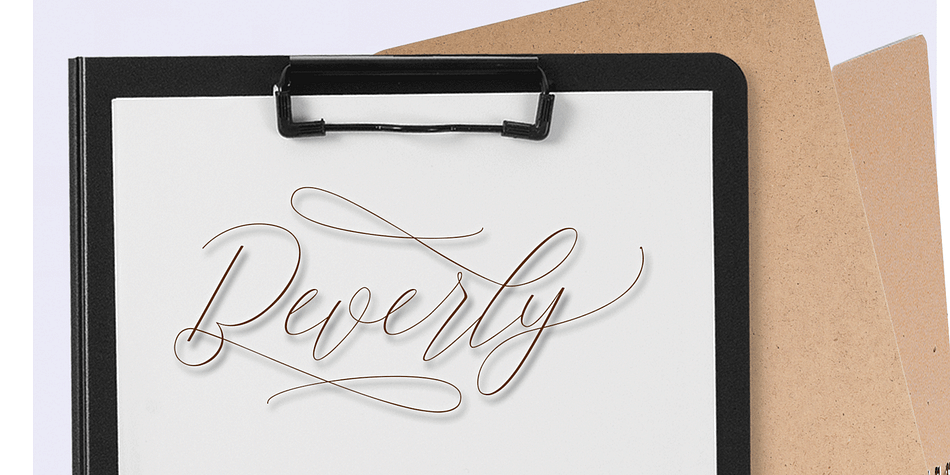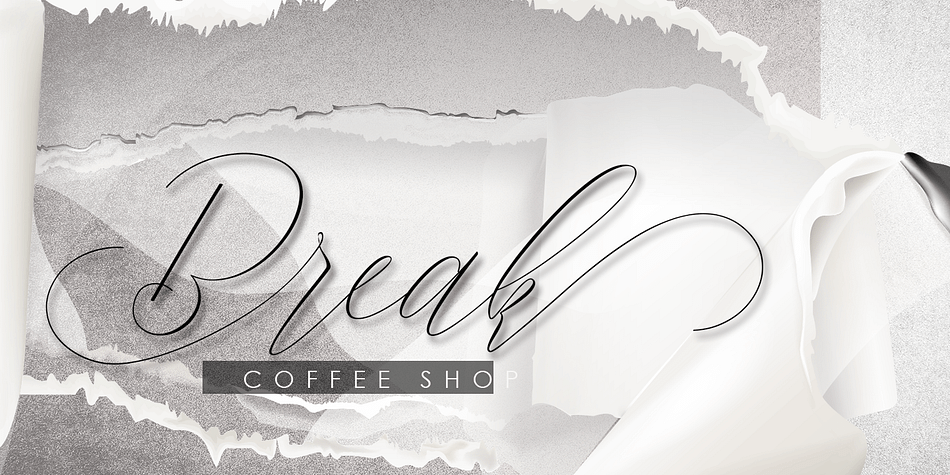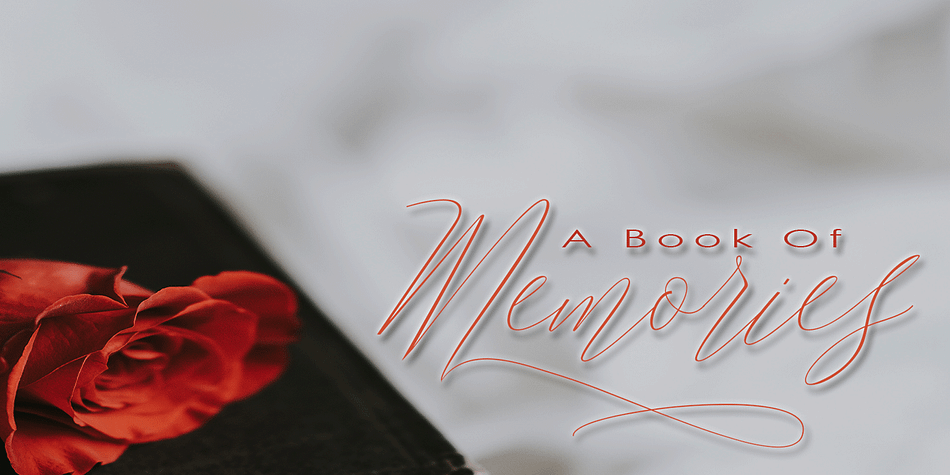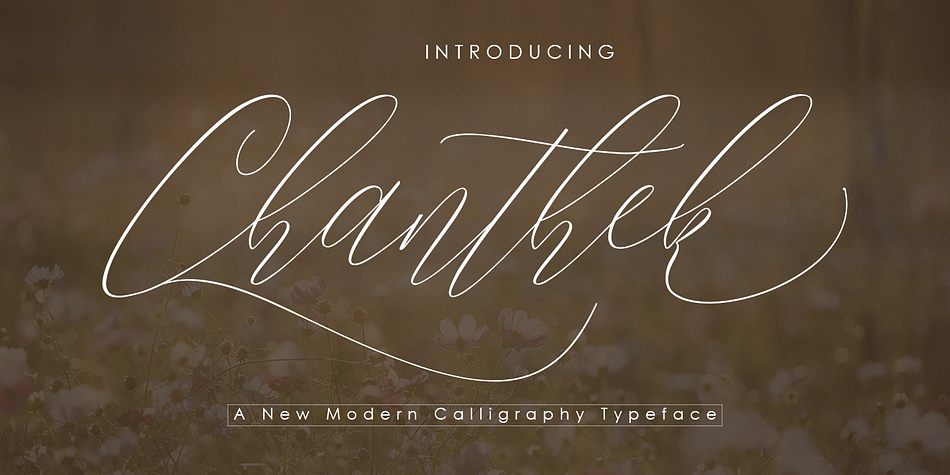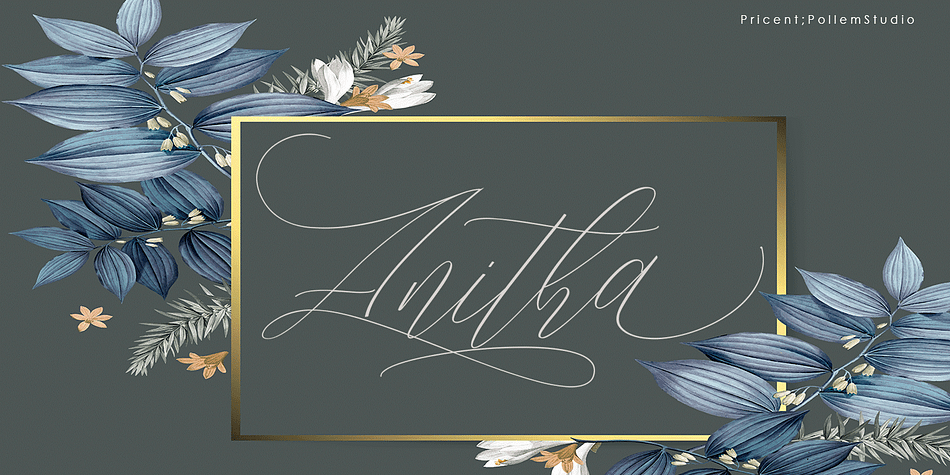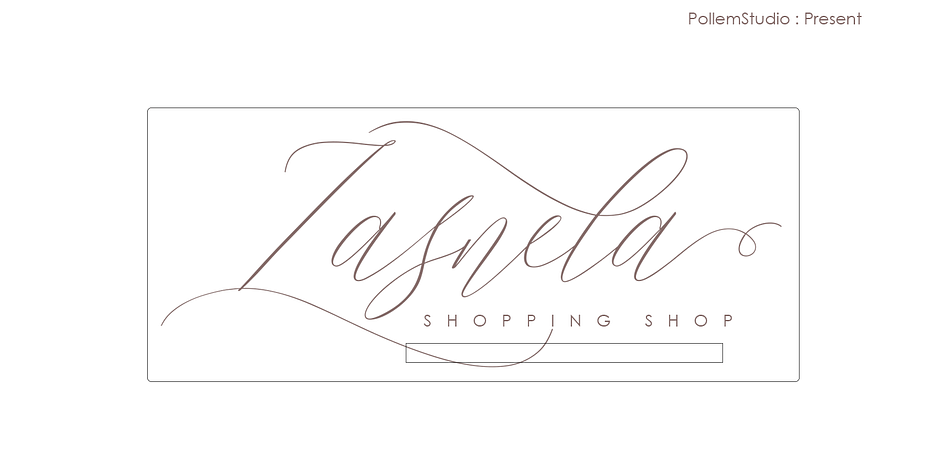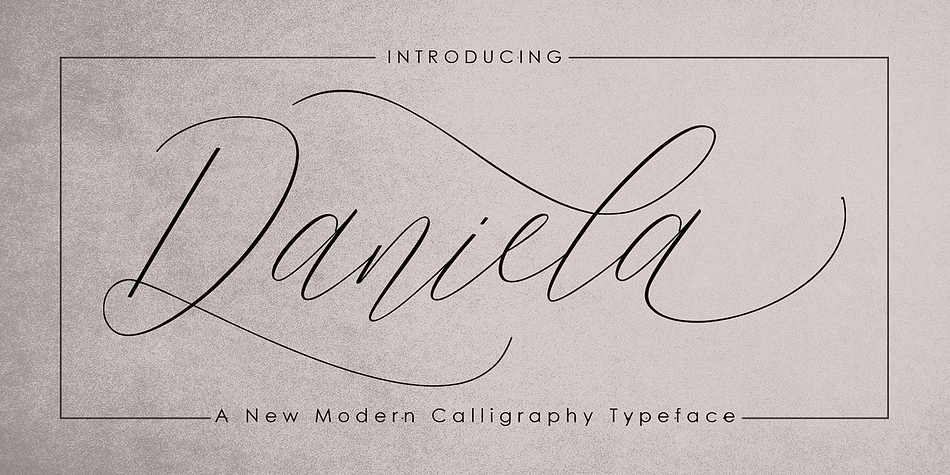
Chanthek is a modern calligraphy and script font published by pollem.Co.
Introducing:
Chanthek a font work that is purely handwritten, has its own characteristics with the style of Script font. this is perfect for invitations, signatures, blogs, social media, business cards, product brands.
Chanthek has Stylistic standard, Stylistic Alternate, Stylistic Sets and ligatures. and includes uppercase and lowercase letters, numbers and punctuation marks.
The Features of this fonts is;
* Standart ligatures
* Stylistic Alternates
* Contextual Alternates
* Stylistic sets